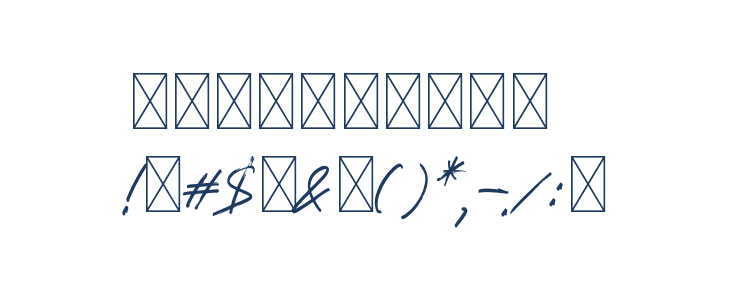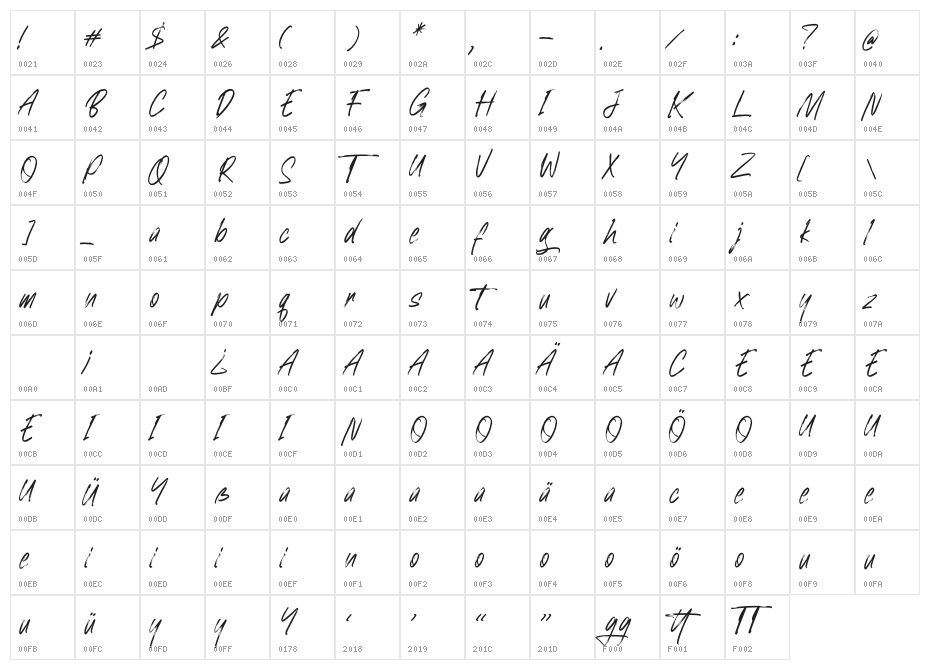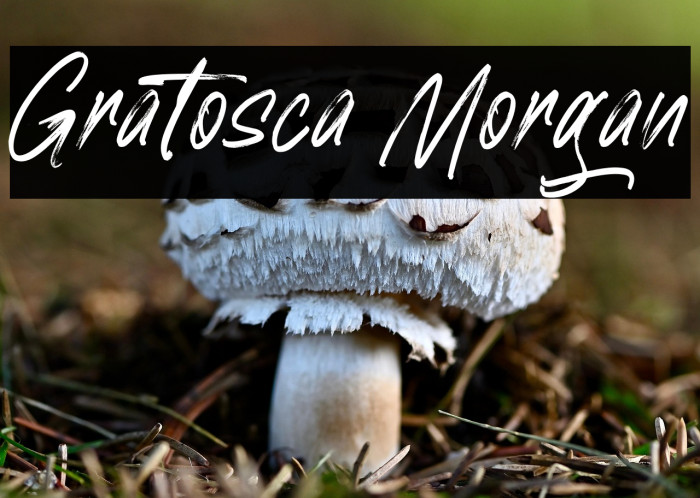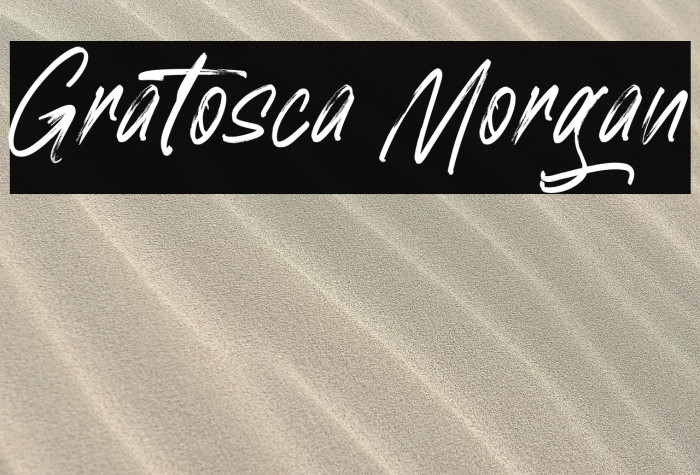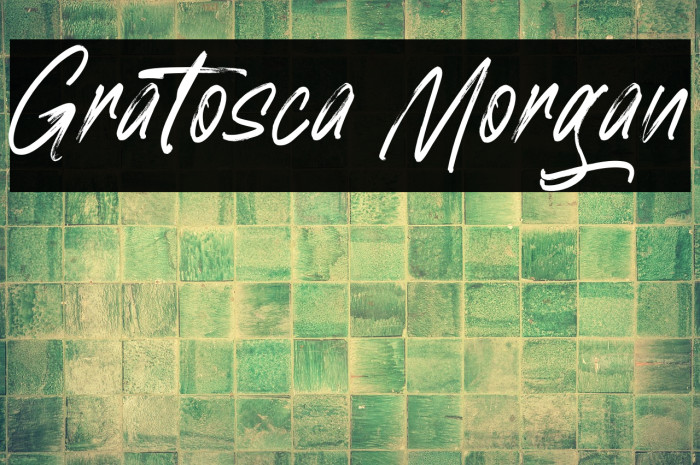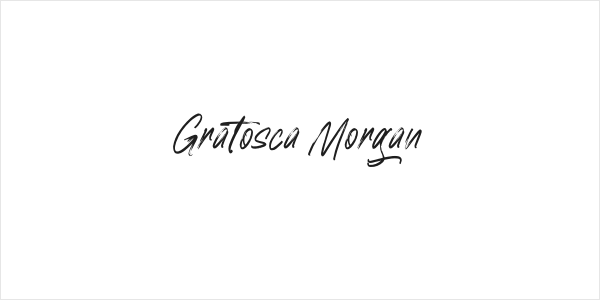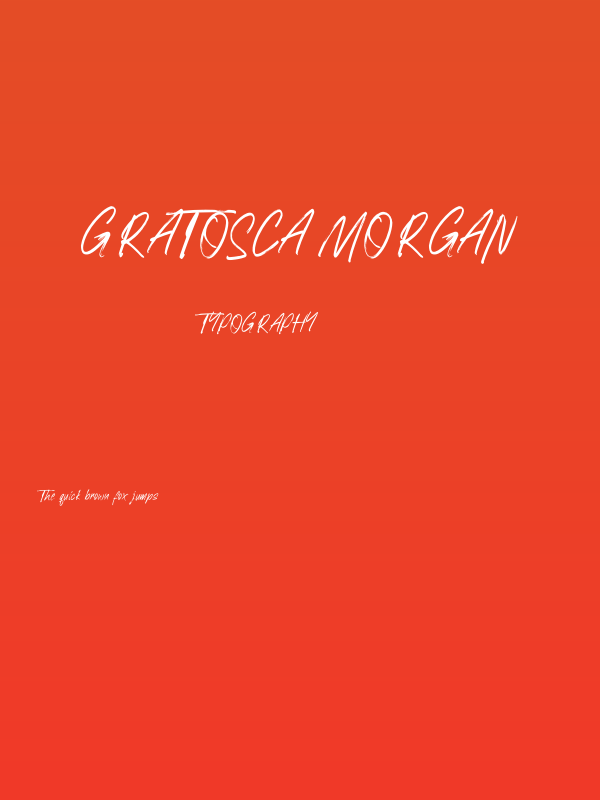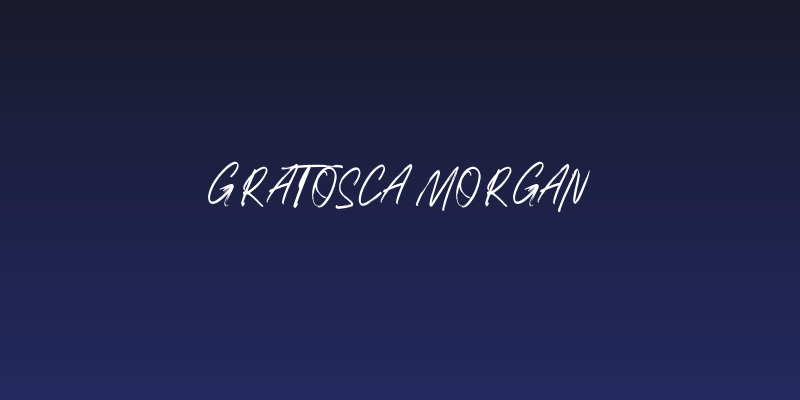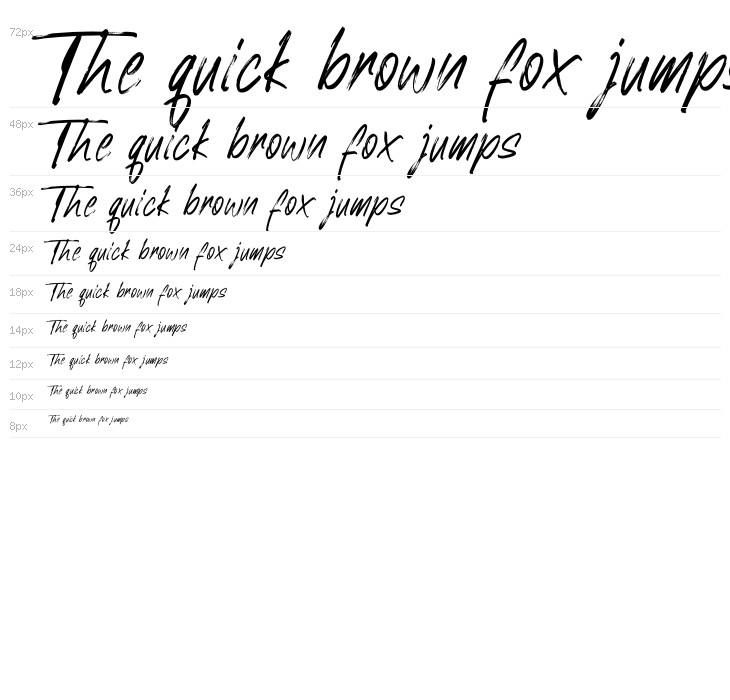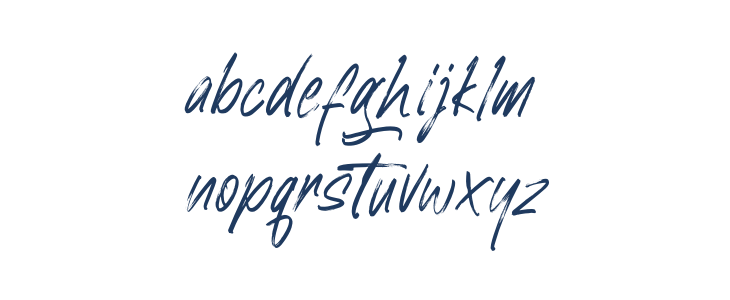
Gratosca Morgan Font
Gratosca Morgan Description
This font exudes a dynamic and expressive style, characterized by its fluid, brush-like strokes that convey a sense of movement and energy. The uppercase and lowercase letters are crafted with a distinctive flair, featuring varying stroke widths that add depth and personality. The characters are slightly slanted, enhancing the handwritten feel, while maintaining legibility. The special characters and numbers are designed with the same artistic touch, ensuring consistency across all elements. This font is perfect for projects that require a personal, artistic touch, such as invitations, branding, and creative designs.